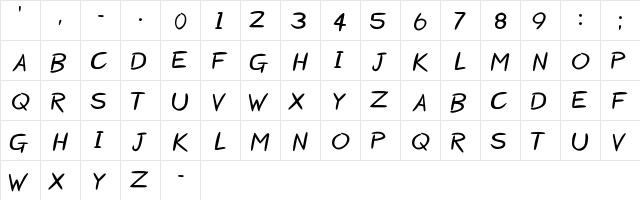
Starzy Darzy Regular Font Preview
Starzy Darzy Regular
Starzy Darzy Regular Font Details
Design Context for Starzy Darzy Typeface
Starzy Darzy is a composed and adaptable typeface that performs quietly and consistently across a wide range of design contexts.